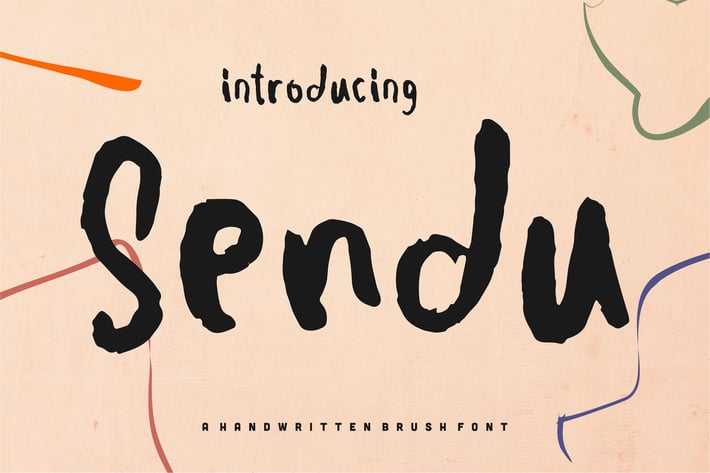
Sendu | A Handwritten Brush Font
Sendu | A Handwritten Brush Font with a calligraphy style, So beautiful on invitation like greeting cards, branding materials, business cards, quotes, posters, and more!